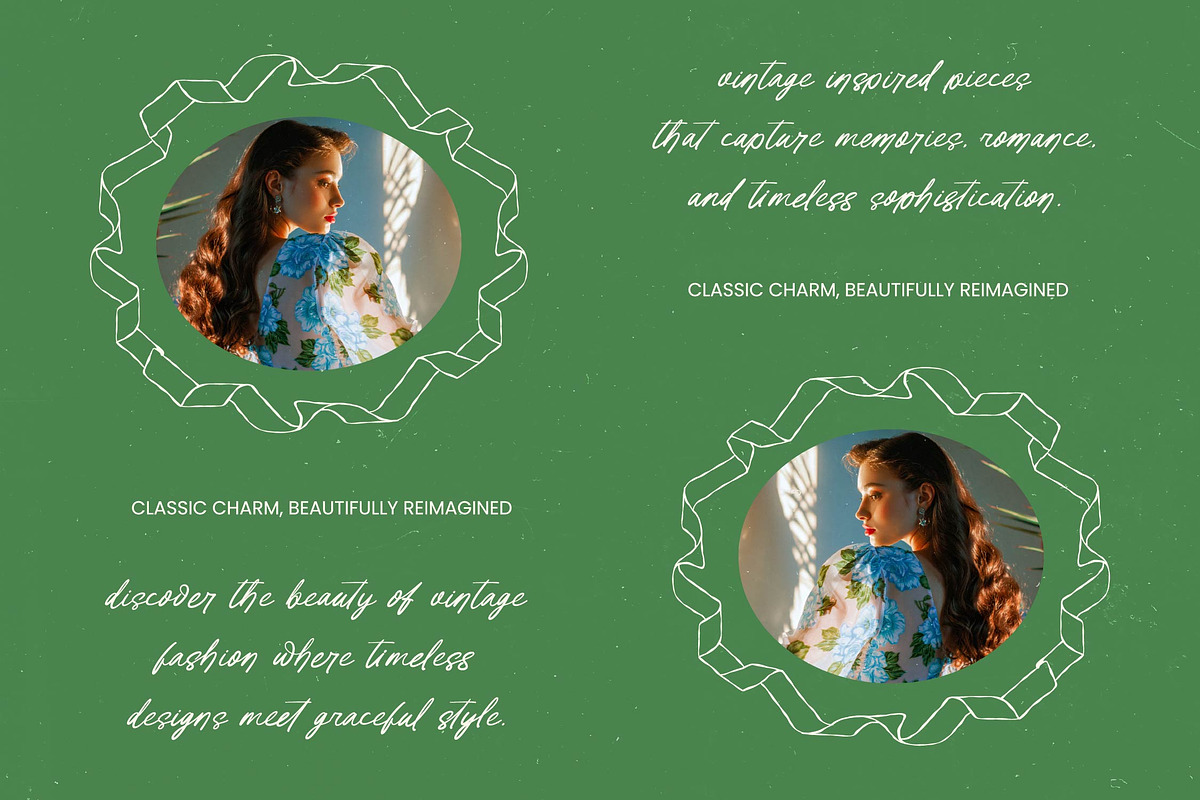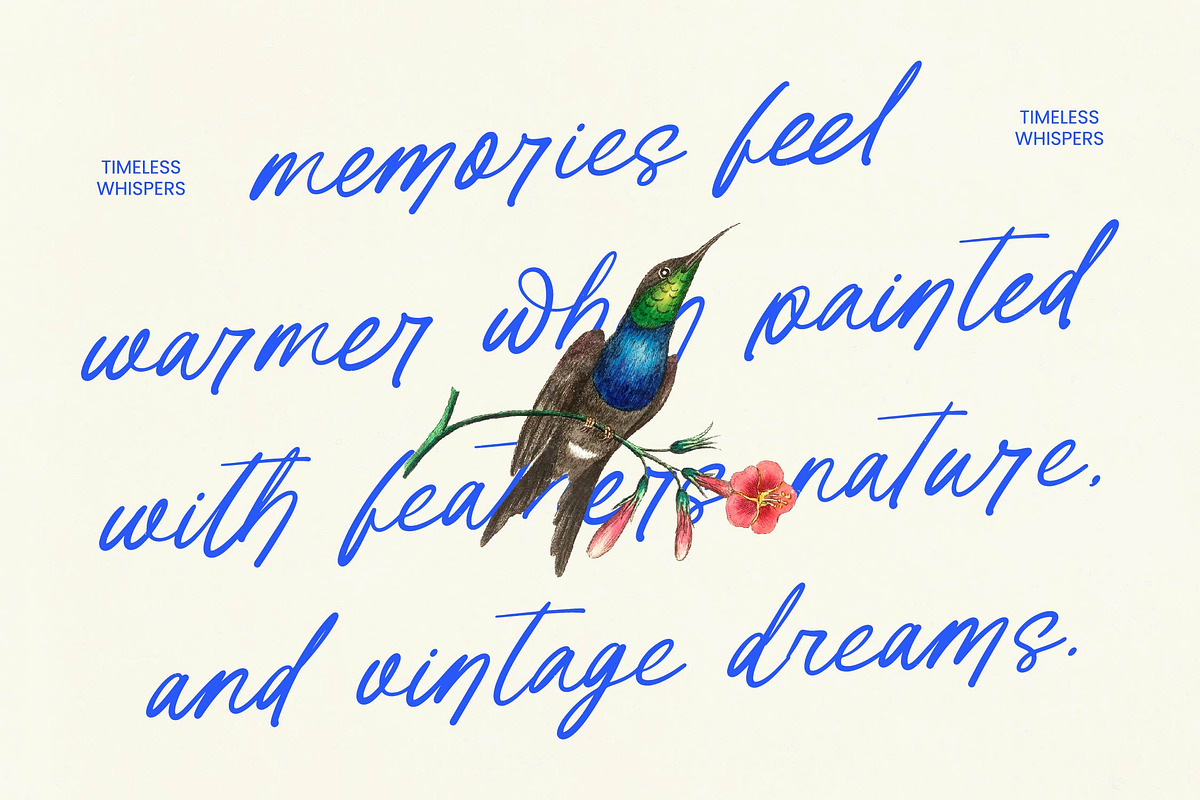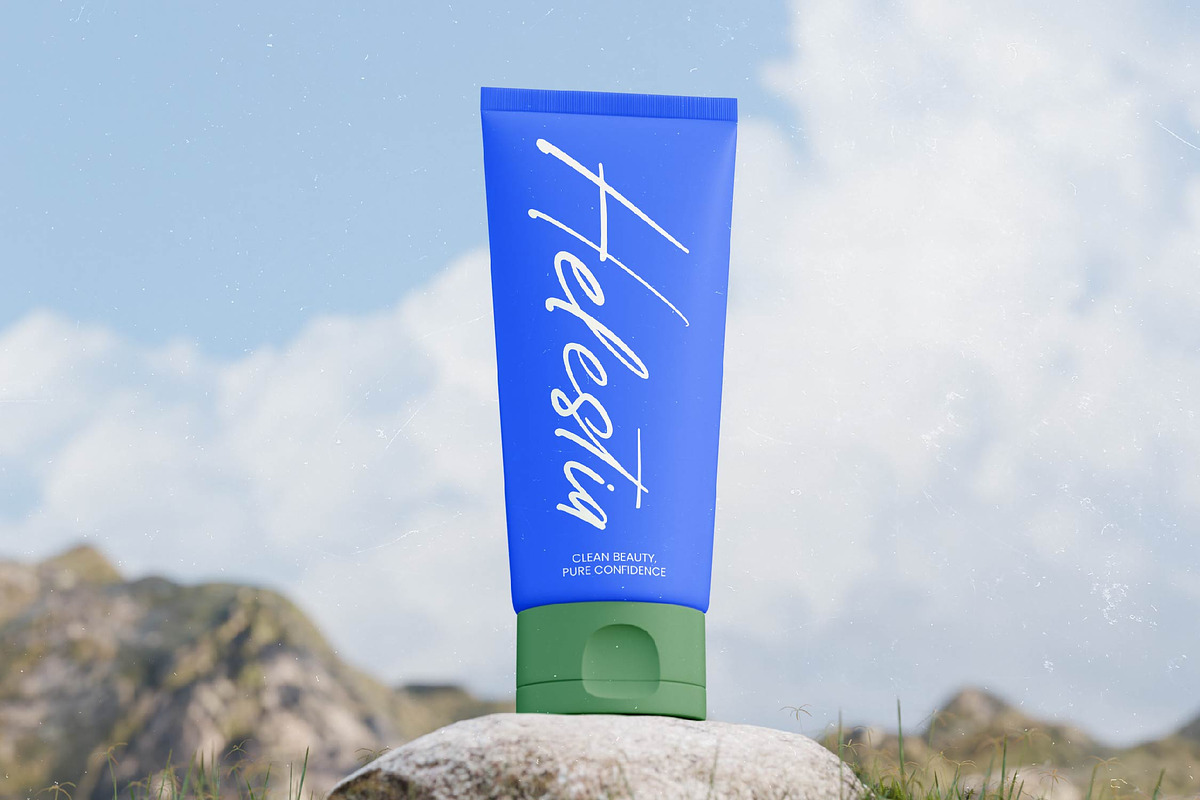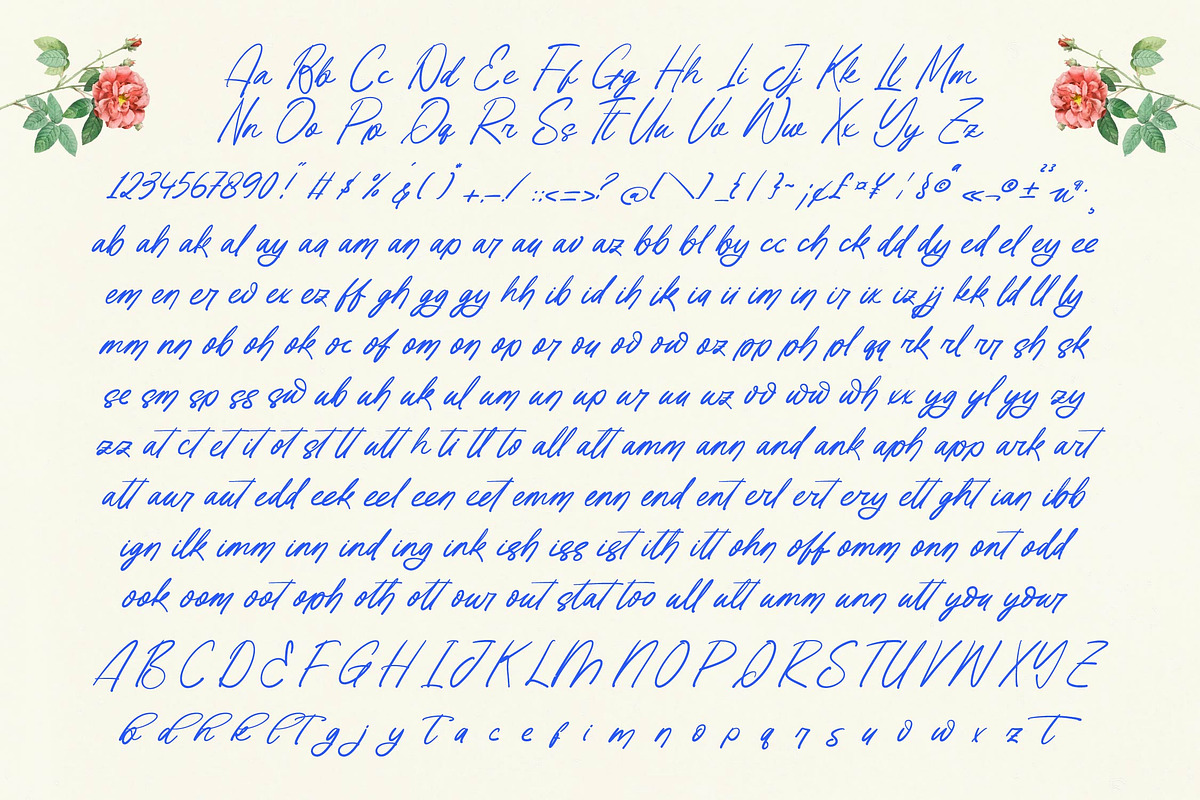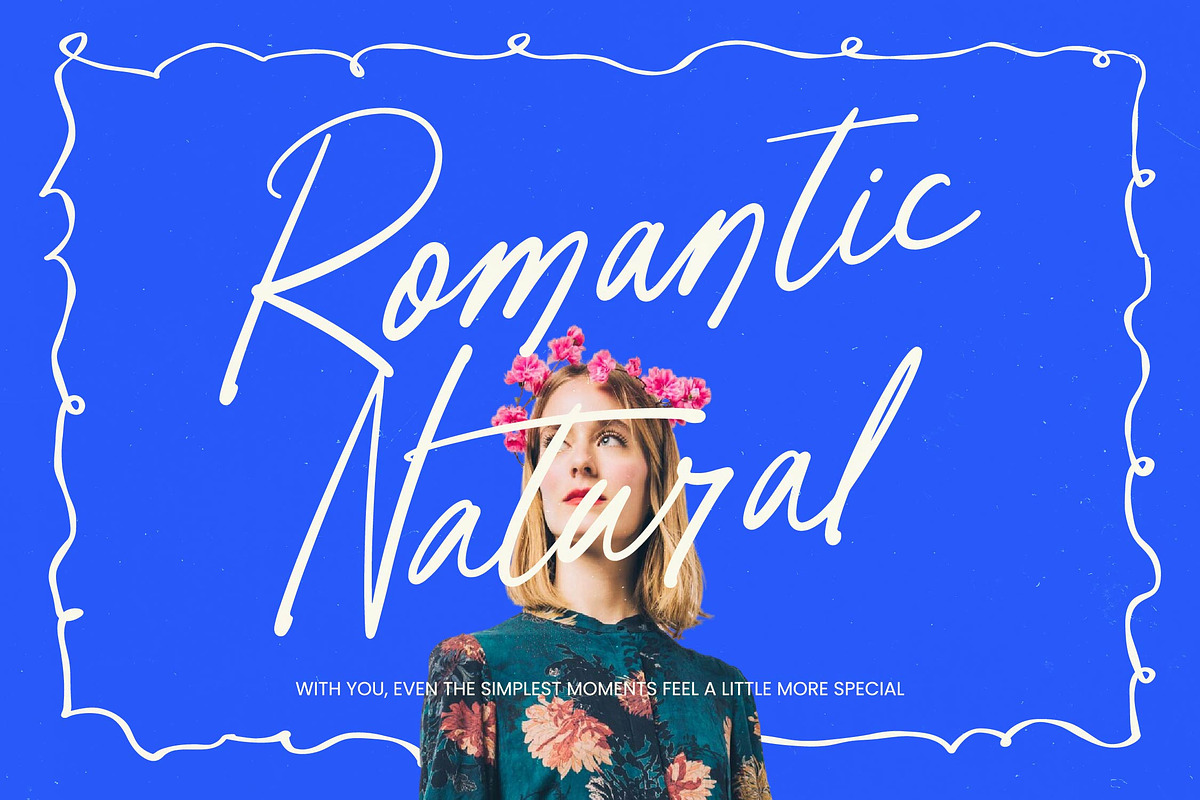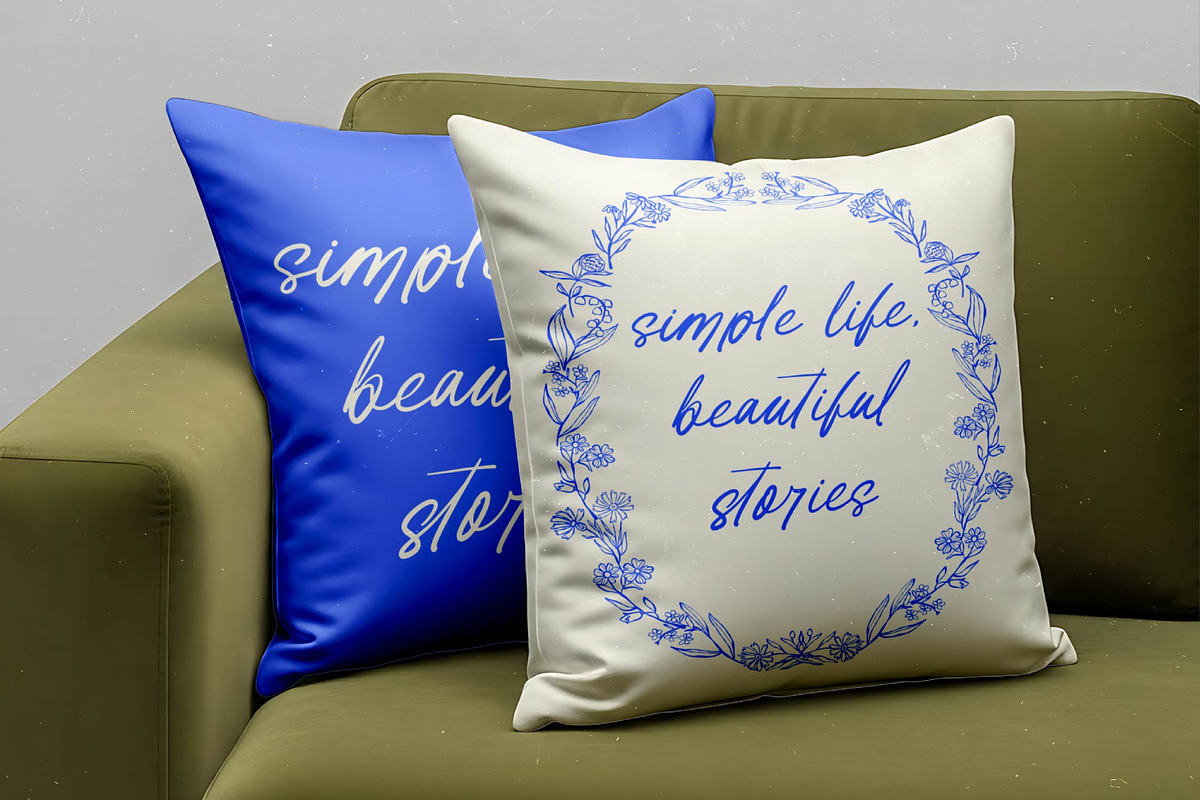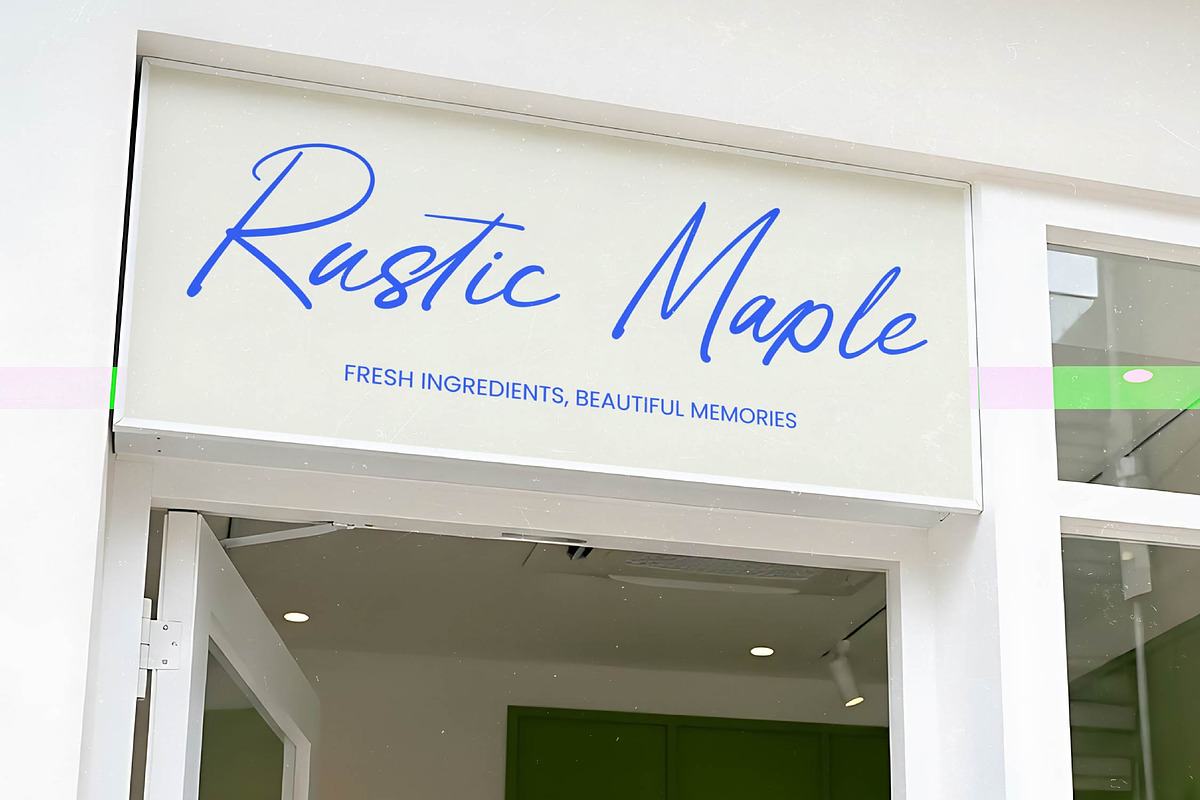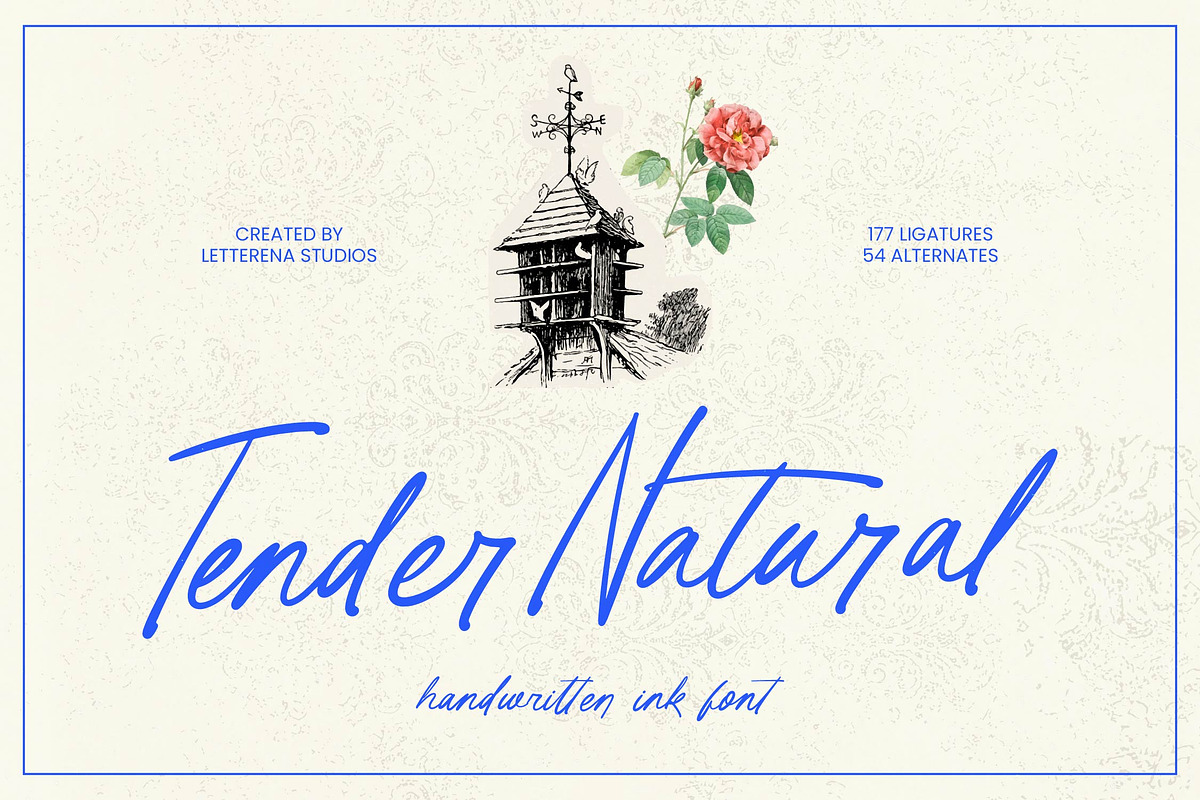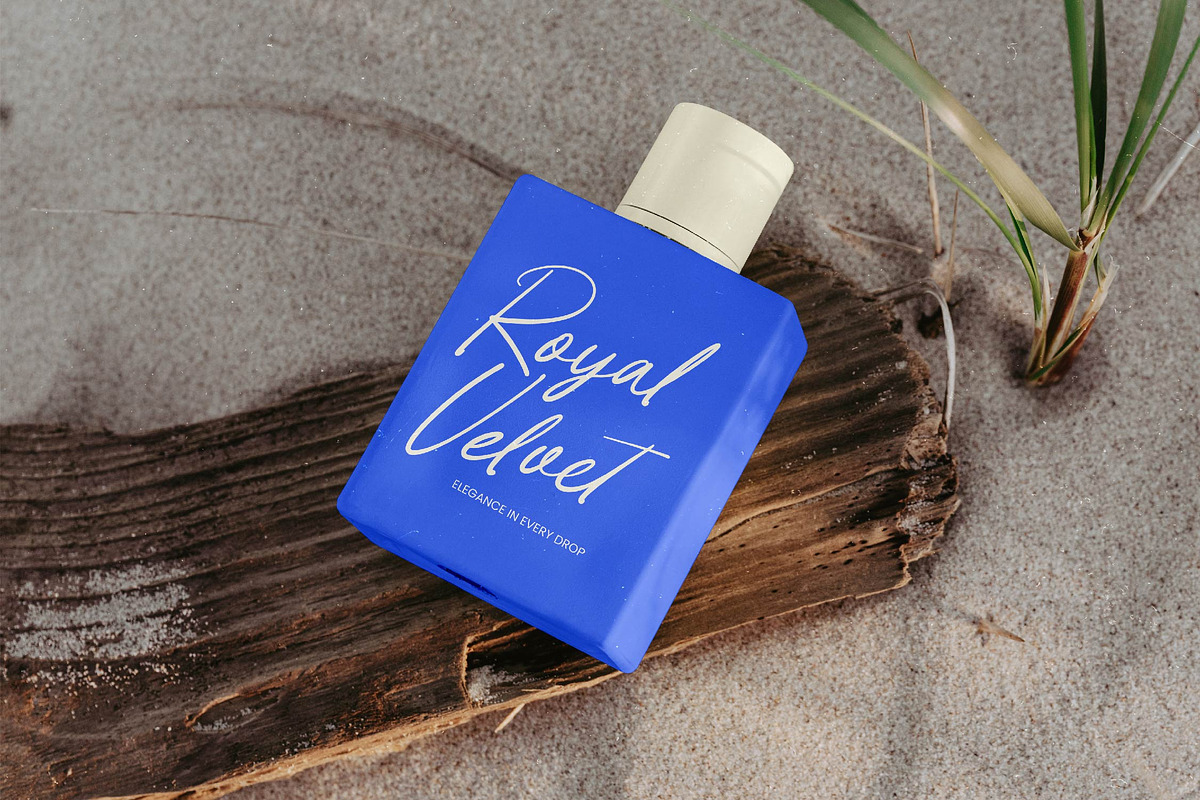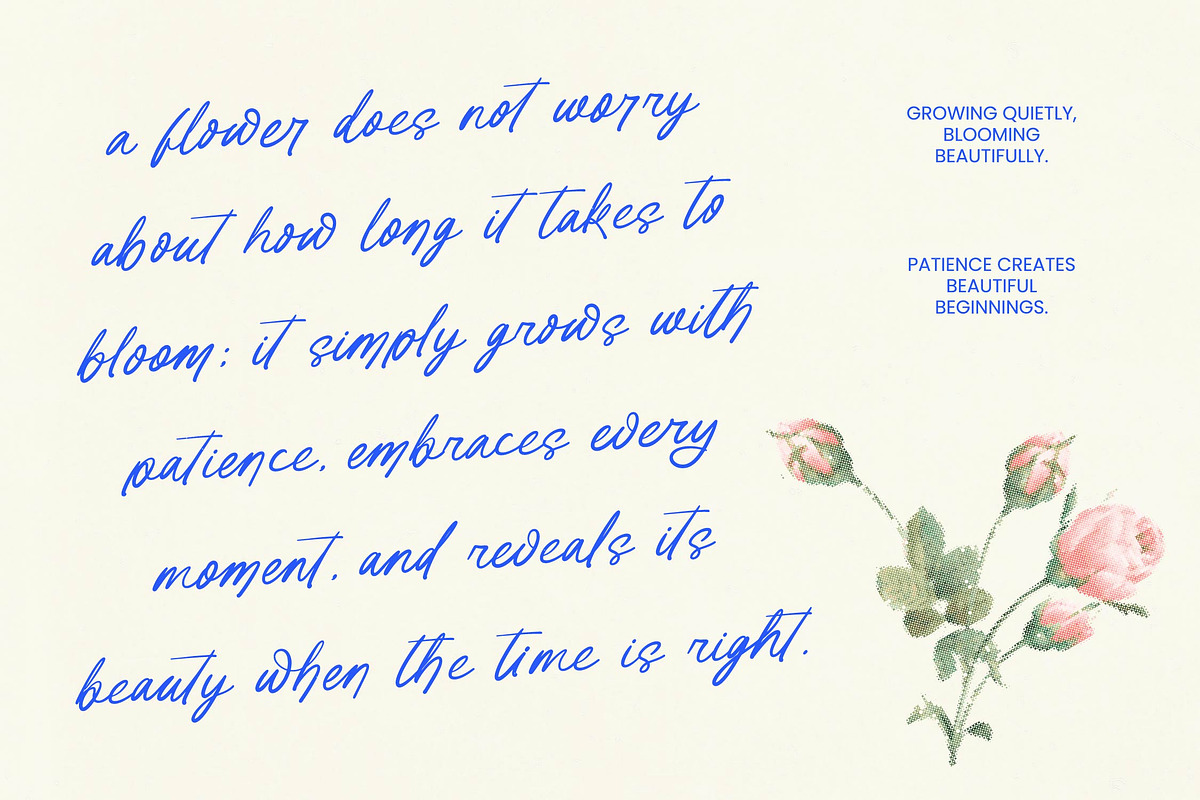
Tender Natural Handwritten Ink Font
Tender Natural - Handwritten Ink Font , Elevate your creative projects with an authentic touch of human craftsmanship and organic flair. Tender Natural - Handwritten Ink Font is a masterfully designed typeface that captures the raw elegance of real ink on paper, offering a handcrafted aesthetic that is both personal and professional. Featuring an impressive library of 177 ligatures and 54 alternates, this font ensures that your typography remains dynamic and unique, mimicking the fluid variations of natural handwriting for a truly bespoke visual identity.
Experience the perfect blend of sophistication and versatility across a wide range of premium applications. This handwritten ink font is the ideal solution for luxury branding, high-end packaging, and editorial design where a sense of intimacy and quality is paramount. Tender Natural - Handwritten Ink Font is also perfect for wedding stationery, logo design, and lifestyle photography, providing a refined yet approachable look that resonates with modern consumers.
Expand your brand’s reach effortlessly with comprehensive linguistic flexibility designed for the modern era. With its extensive multilingual support, Tender Natural - Handwritten Ink Font adapts seamlessly across global markets, making it incredibly versatile for international projects. This global compatibility ensures that your message remains consistent and impactful, regardless of the region, solidifying its status as an essential tool for commercial designers working on a worldwide scale.
Transform ordinary text into a masterpiece of sophisticated typography with a single, high-impact choice. By integrating Tender Natural - Handwritten Ink Font into your toolkit, you gain access to a professional-grade resource that balances artistic expression with legibility. Whether you are crafting a boutique brand or a global campaign, this font provides the distinctive personality required to captivate your audience and leave a lasting impression in a competitive marketplace.